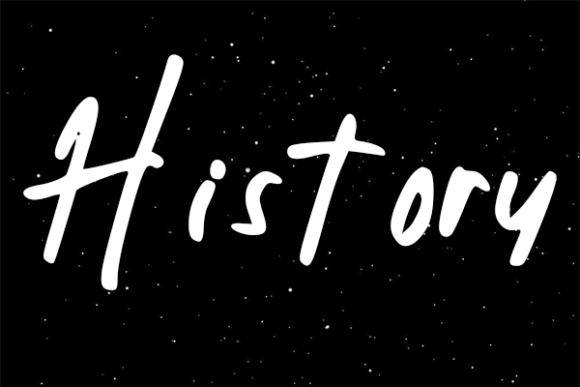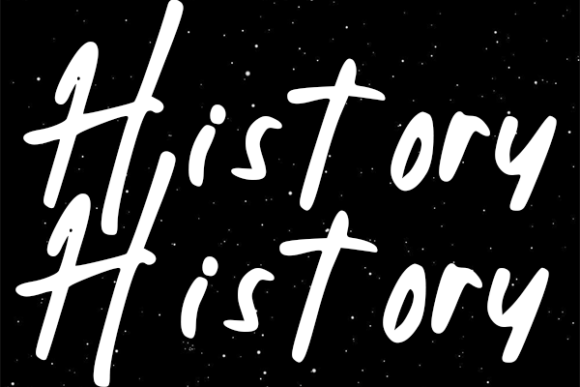
History Font
About History Font
“History” emerges as the optimal choice for crafting eye-catching logos, establishing distinctive branding, and creating impactful quotes. With a design that imparts a unique and beautiful touch to each letter, “History” ensures that your design comes alive with a sense of individuality and visual appeal.
In logo design, “History” offers a versatile and engaging option. Its unique letterforms and beautiful touches contribute to a memorable and visually striking logo, allowing your brand to stand out with creativity and style.
For branding purposes, the font’s distinctive design elements add character and charm, creating a cohesive and visually appealing visual identity. “History” becomes an excellent choice for businesses and projects aiming to leave a lasting impression and set themselves apart.
When crafting quotes, “History” elevates the impact of your words. The unique touches in each letter enhance the overall aesthetic, transforming ordinary text into visually appealing and attention-grabbing quotes. Whether shared on social media or used in various media, your quotes will resonate with a captivating charm.
The beauty of “History” lies in its ability to breathe life and creativity into your design projects. Its individual and distinctive letterforms make it a valuable asset for a variety of creative endeavors, allowing you to express your brand or message with flair.
In conclusion, “History” is not just a font; it’s a design tool that enhances your logos, branding, and quotes with a unique and beautiful touch. Let “History” be the choice that brings vibrancy and individuality to your creative projects, ensuring they capture attention and leave a lasting visual impact on your audience.